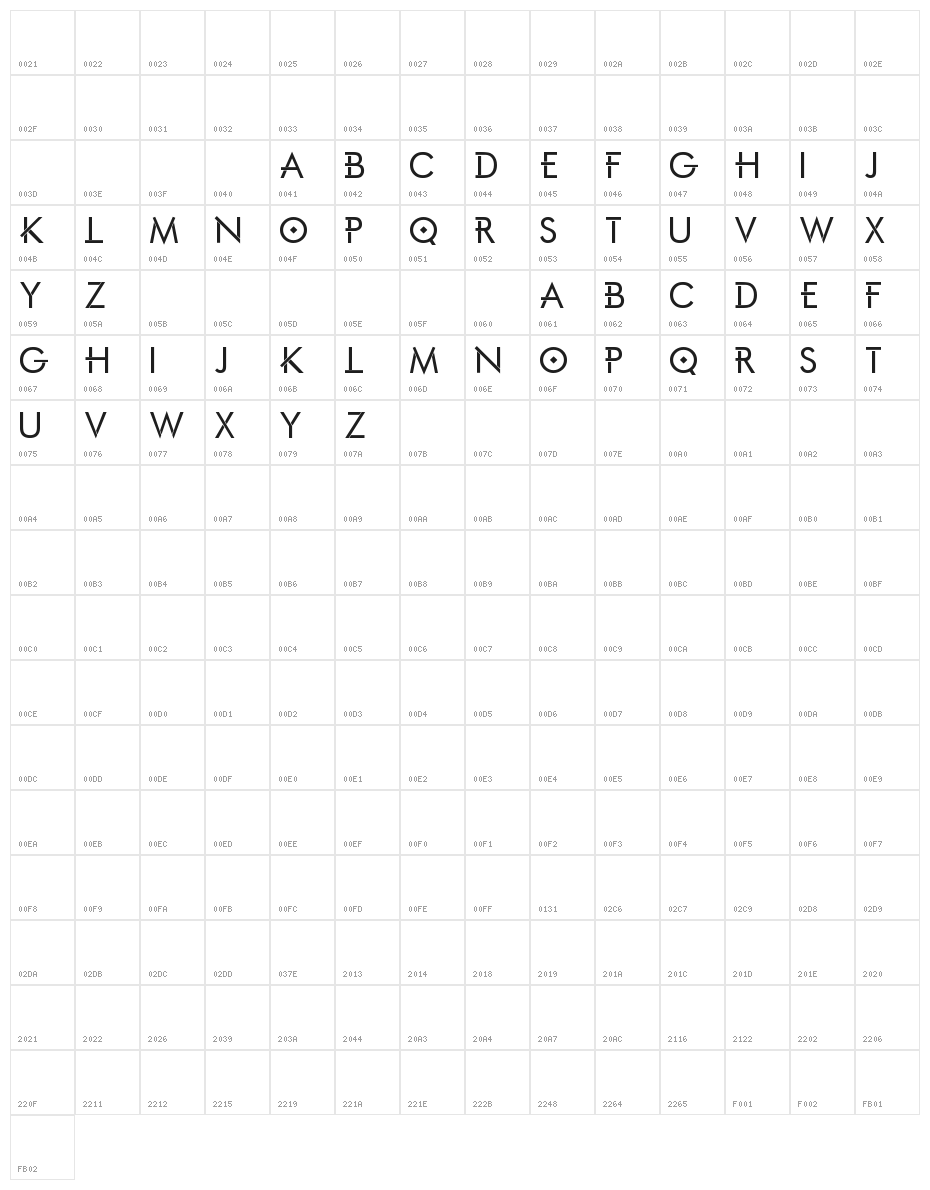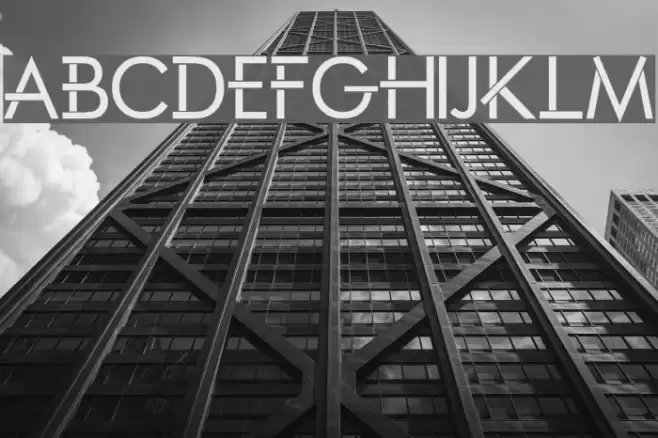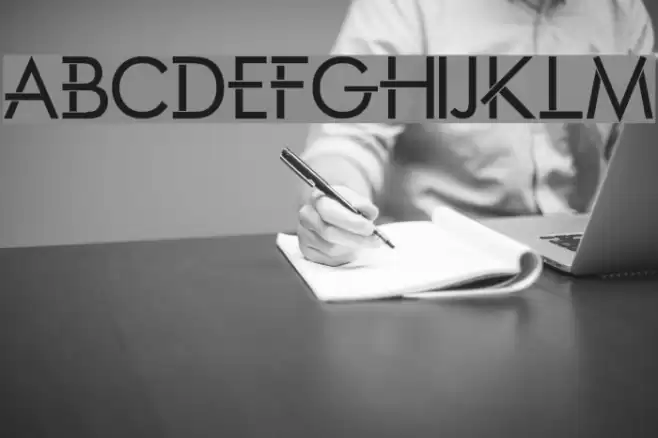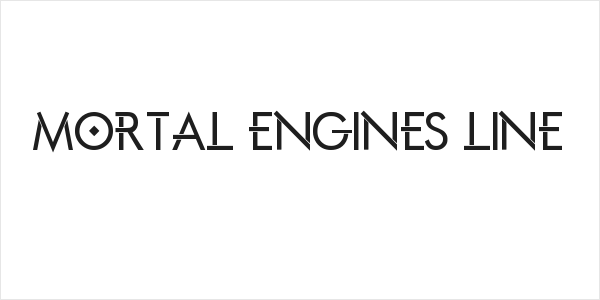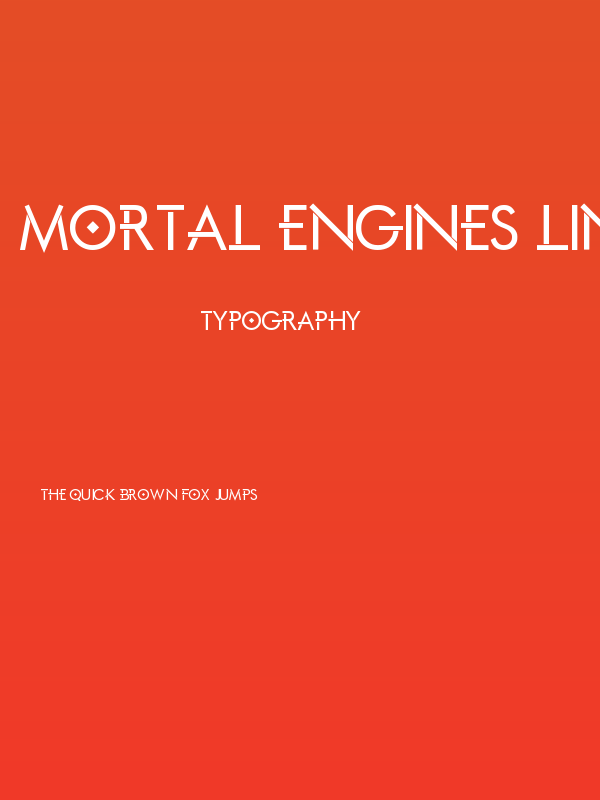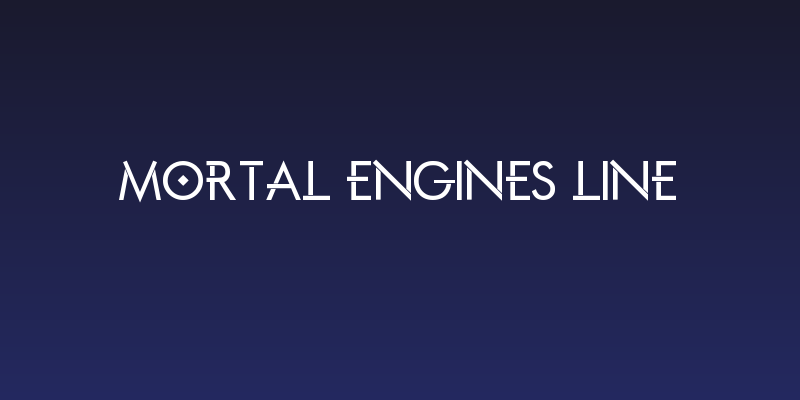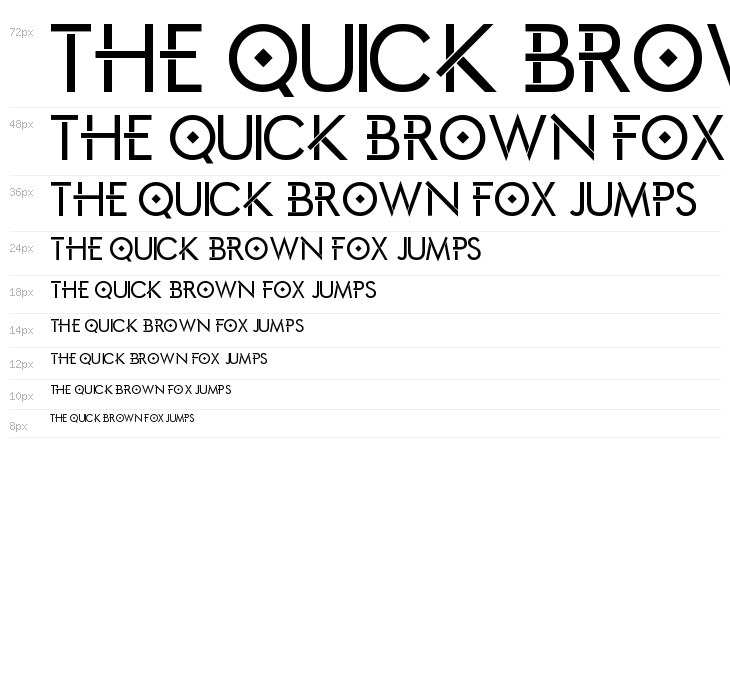
Mortal Engines Line Font
Mortal Engines Line Description
This font features a modern and futuristic design with a unique geometric style. The uppercase letters are characterized by bold, clean lines and distinctive cutouts, particularly noticeable in letters like 'A', 'B', 'E', and 'R', which incorporate circular and angular elements. The font maintains a consistent stroke width throughout, giving it a uniform appearance. The letter 'O' is especially notable for its diamond-shaped cutout, adding a striking visual element. This font is highly stylized, making it ideal for projects that require a contemporary and edgy aesthetic.
| Use Case | Logos, Headlines |
| Proposed Projects | Ideal for sci-fi movie posters, tech branding, futuristic logos, and digital media. |